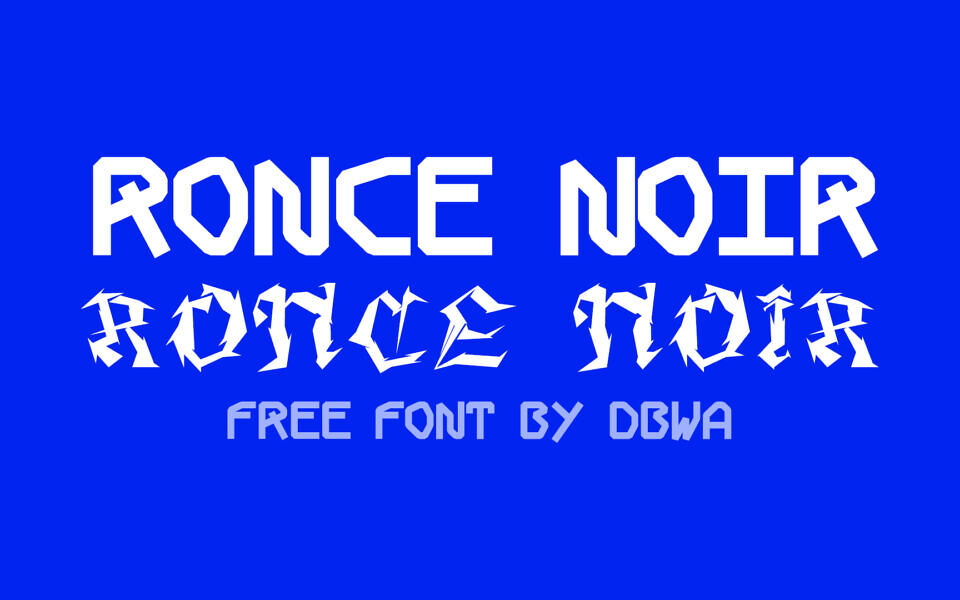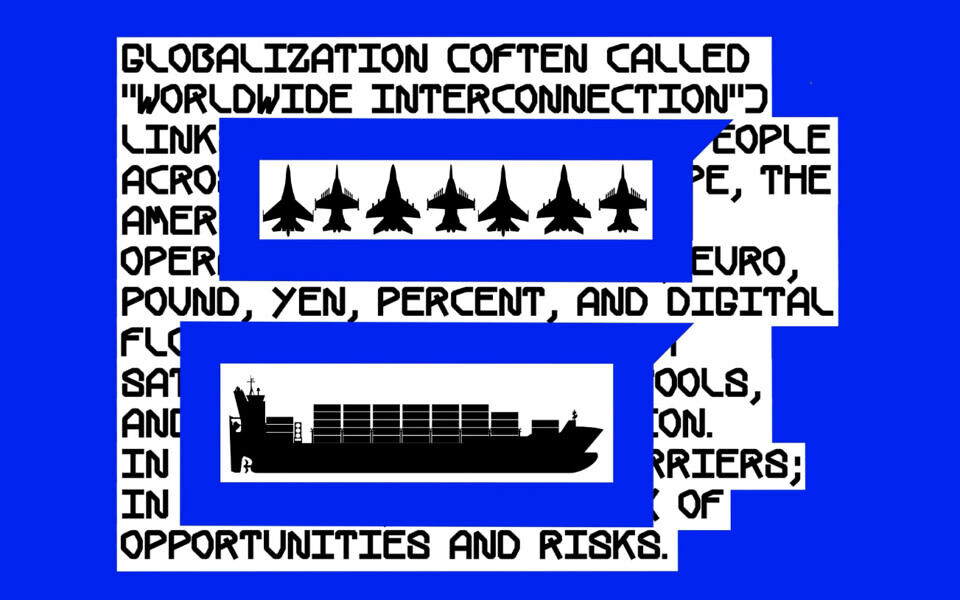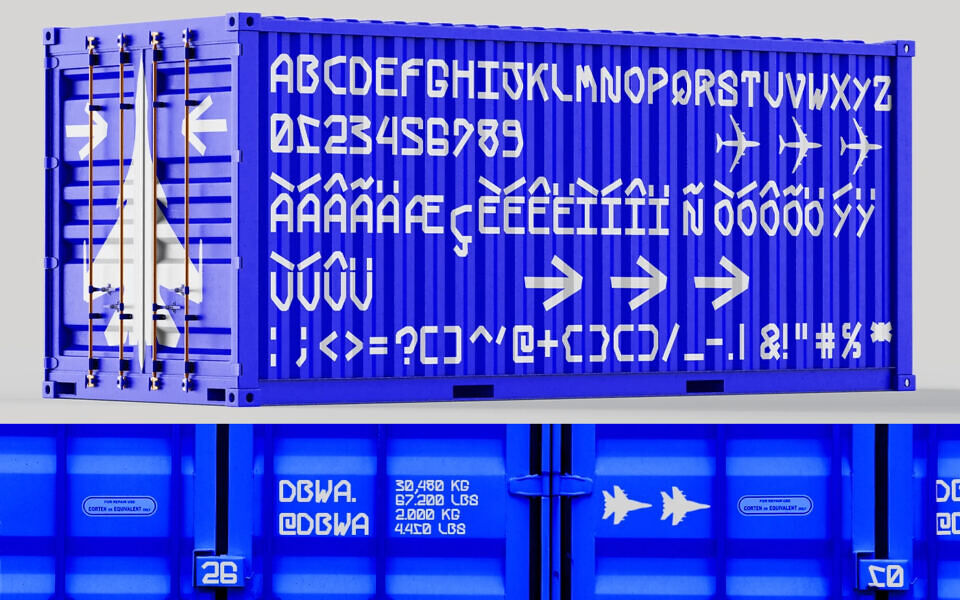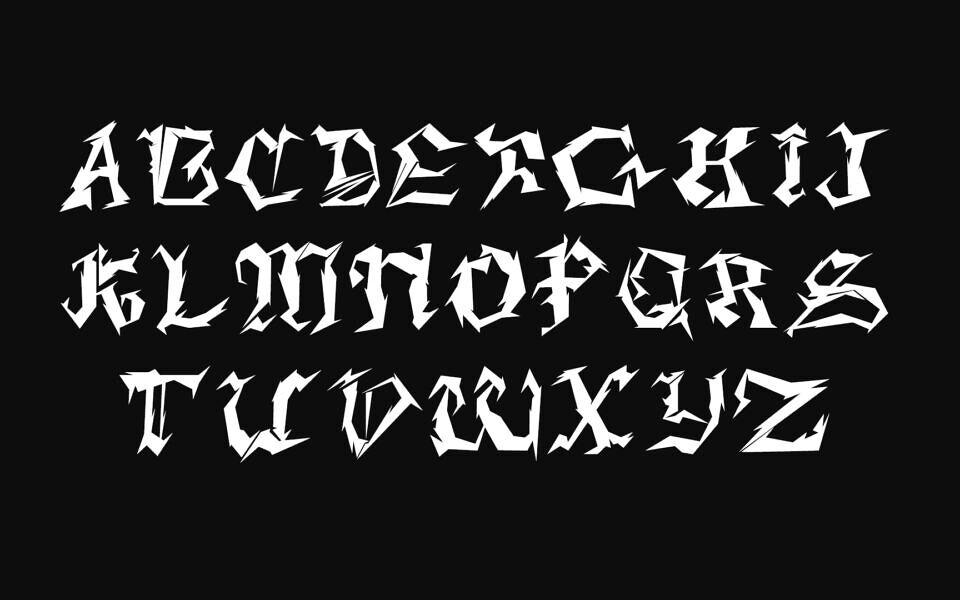
Ronce Noir Font is a bold, industrial monospace typeface with sharp, angular cuts and a rugged blackletter influence. Inspired by logistics, machinery, and global transport visuals, it delivers a strong mechanical and modern feel.
The font includes uppercase letters with an alternate blackletter style, lowercase characters, numbers, and symbols. Free for unrestricted use, Ronce Noir is ideal for posters, branding, experimental typography, and edgy graphic design projects.